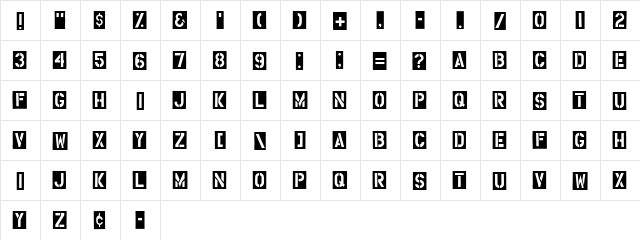
Housebroken Regular Font Preview
Housebroken Regular
Design Context for Housebroken Typeface
Housebroken is a composed and adaptable typeface that performs quietly and consistently across a wide range of design contexts.